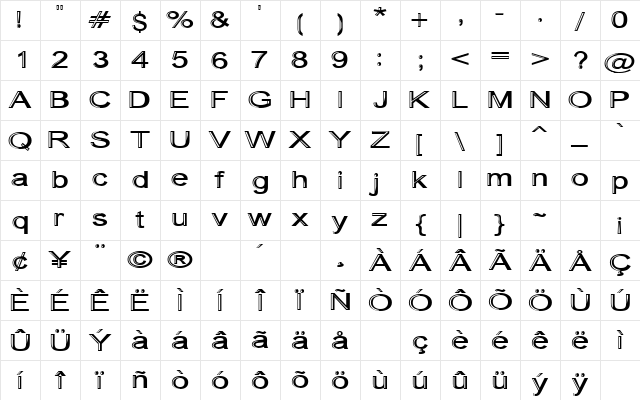
Skunkline Regular Font Preview
Skunkline Regular
Design Context for Skunkline Typeface
Skunkline is a composed and adaptable typeface that performs quietly and consistently across a wide range of design contexts.